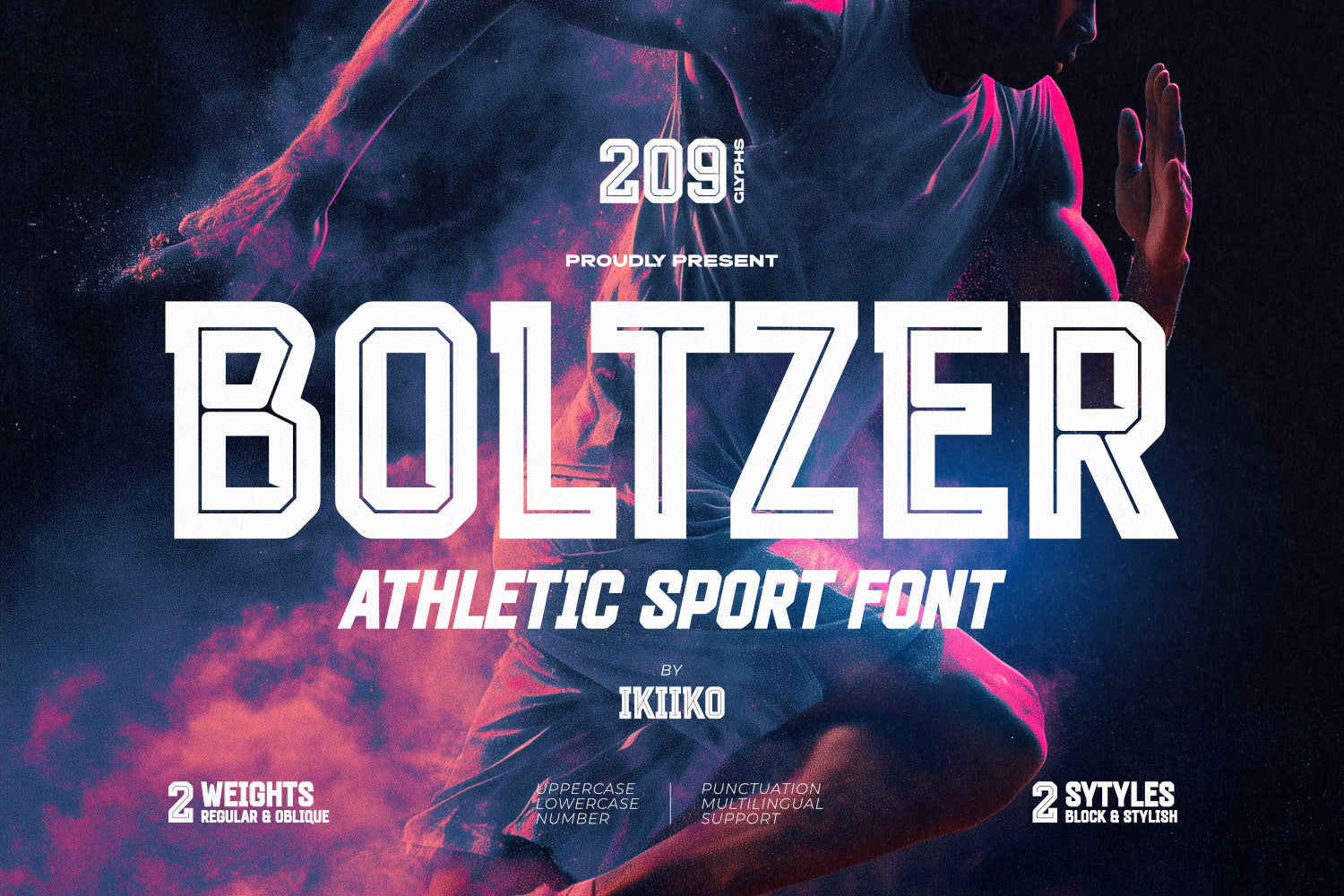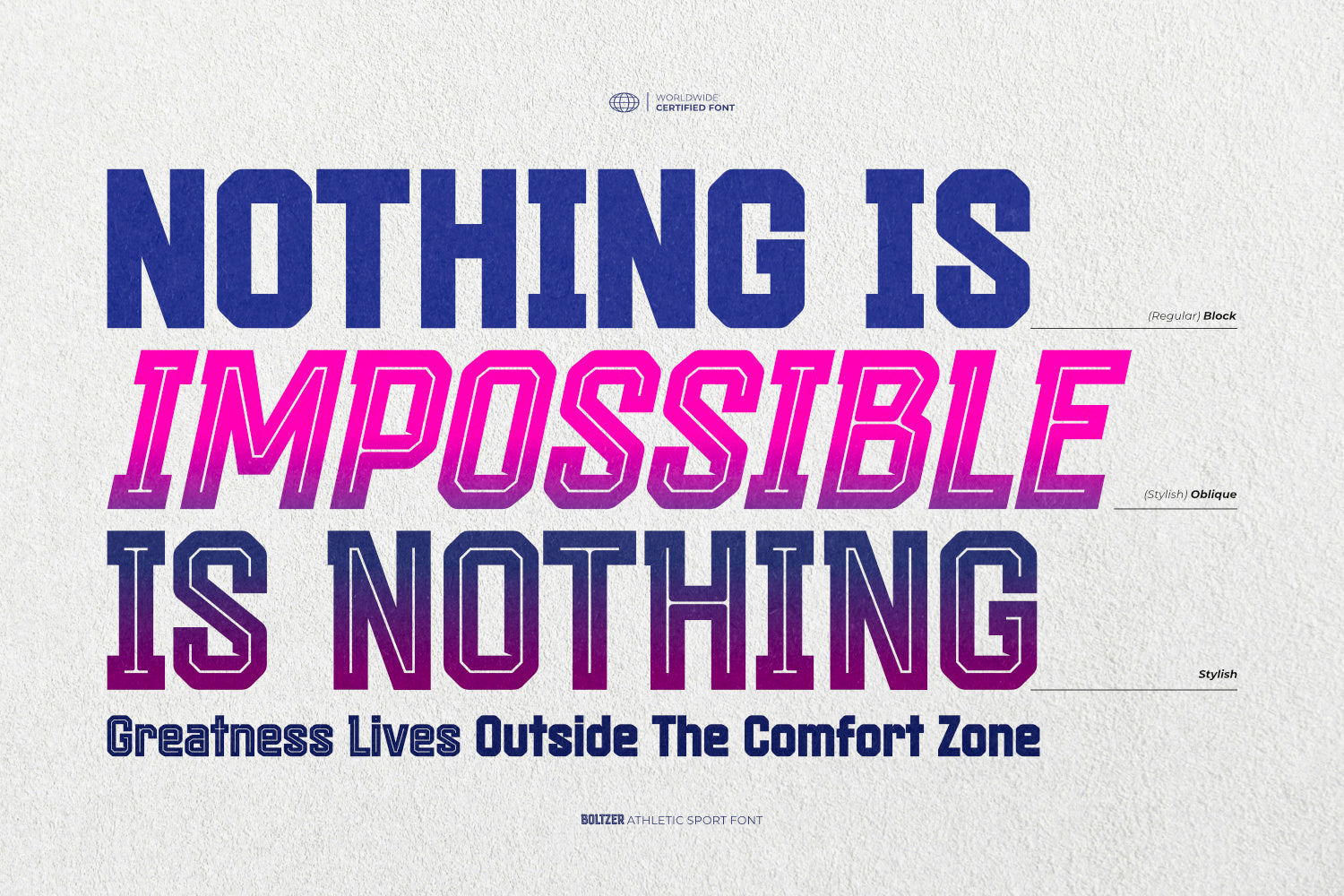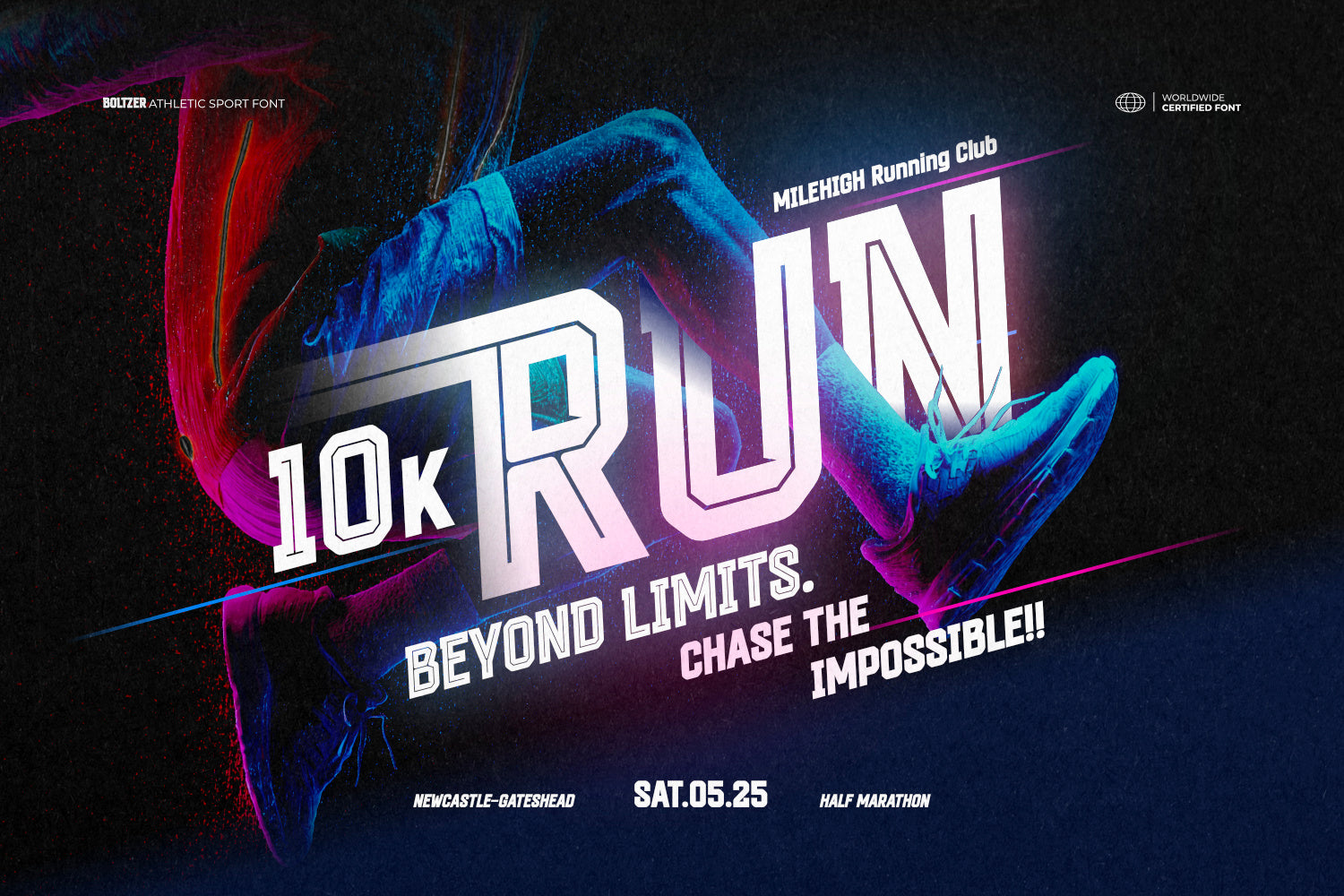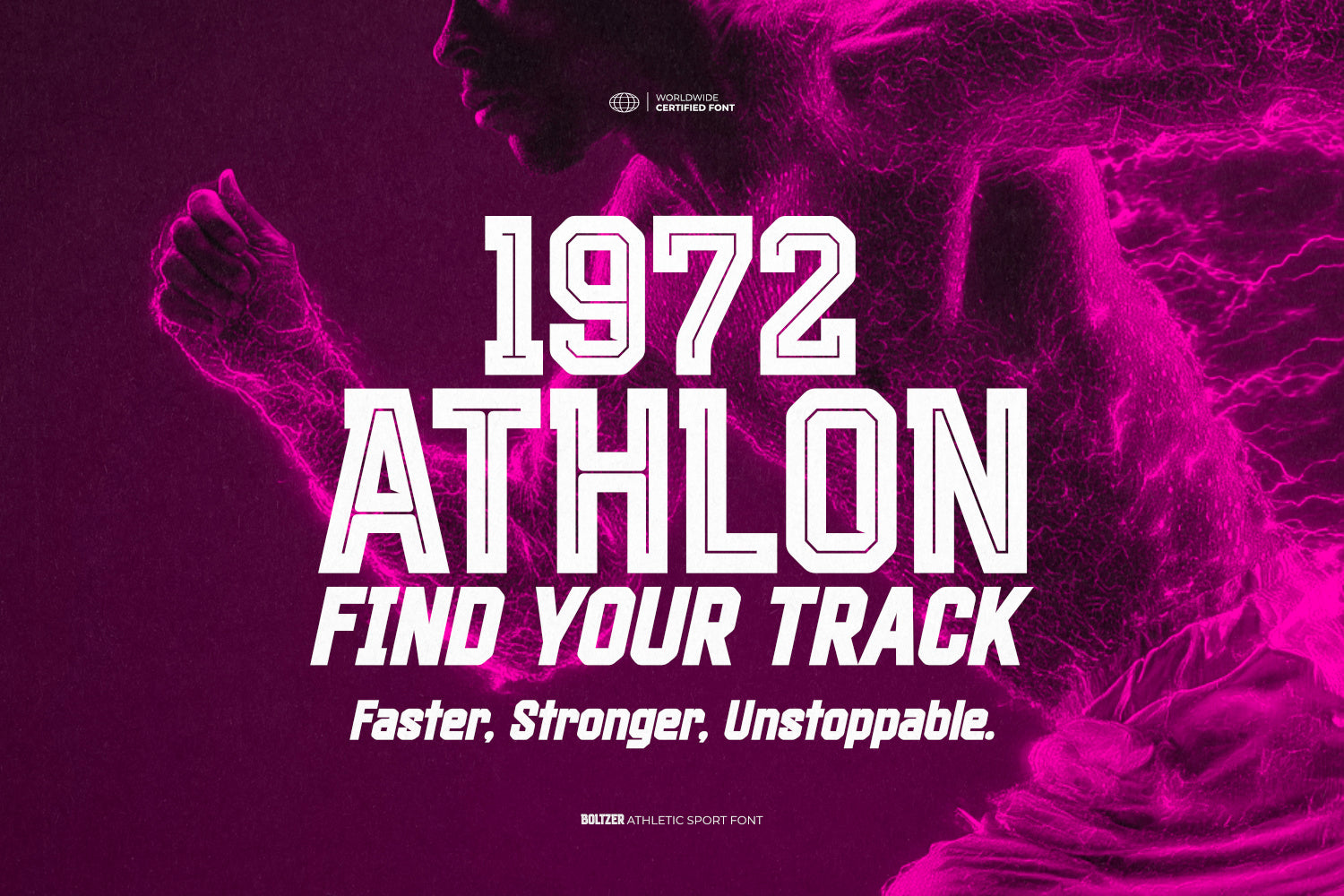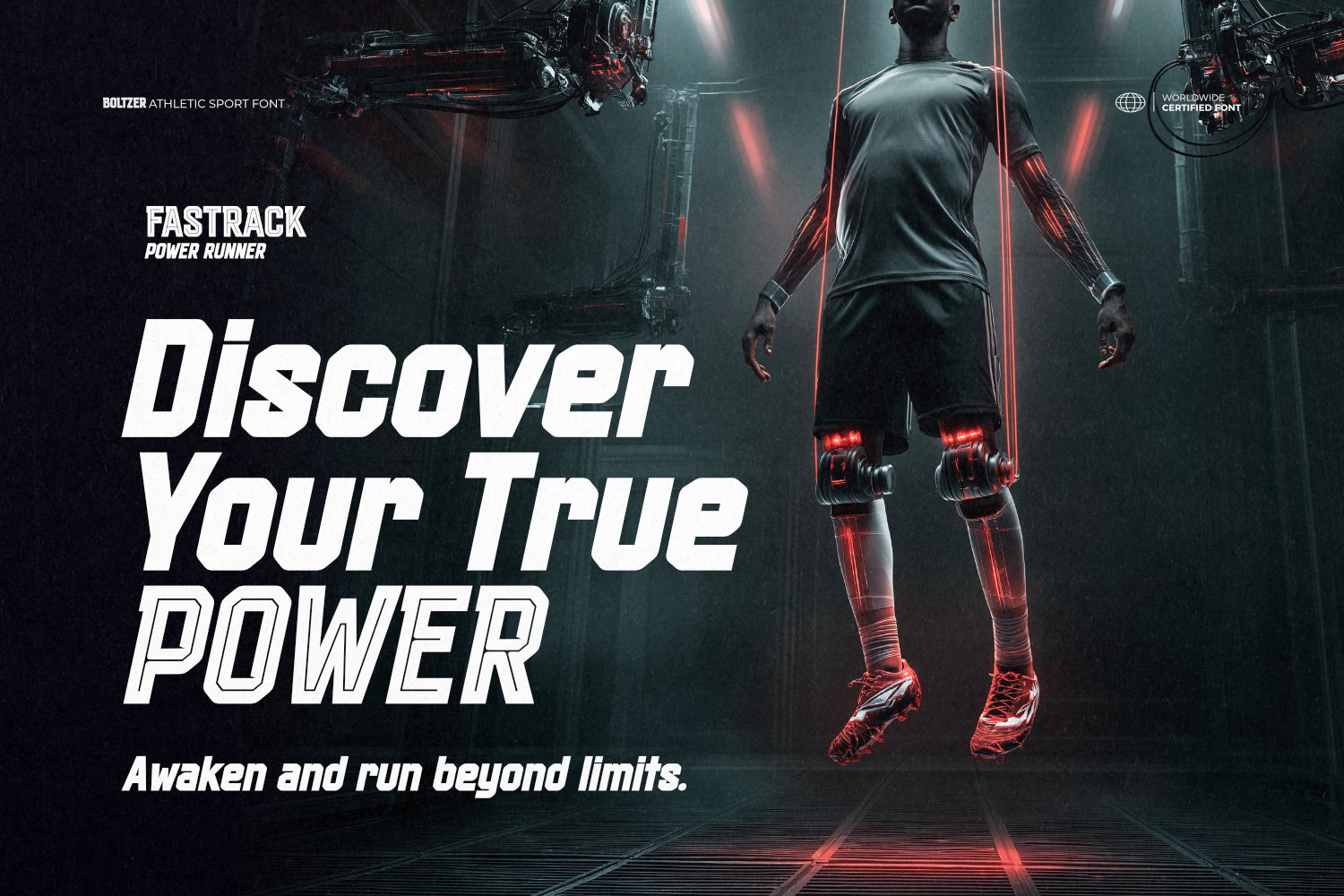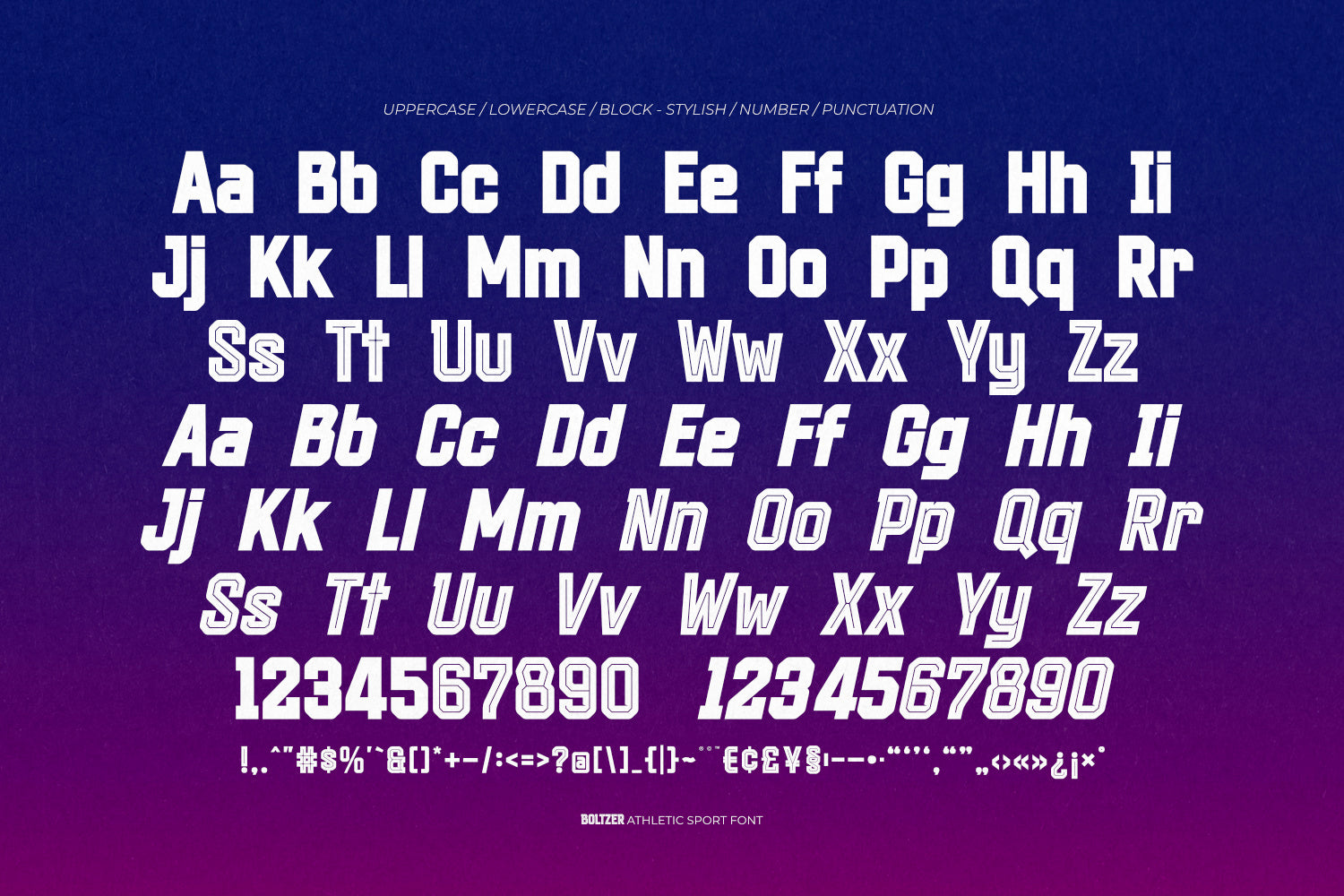
Proudly present Boltzer - Athletic Sport Font, created by ikiiko.
Boltzer is a bold and masculine athletic sport font designed to bring strong, energic vibes to your designs. Inspired by old-school college lettering and modern urban style, Boltzer combines strength and style for a versatile, eye-catching typeface. Perfect for sport logos, team branding, varsity apparel, and competitive event graphics, this font exudes athletic energy and confidence. Boltzer comes in two distinct styles — Block and Stylish (featuring dynamic lines inside the letters) — and each style includes Regular and Oblique weights, giving you flexibility for both classic and edgy looks. Whether you're creating a team logo, a college poster, or an urban sport-themed design, Boltzer delivers bold, strong, and masculine typography with an unmistakable sport vibe.
This font is perfect for a sport club logo, poster event & flyers, apparel branding, headline, cover, magazine layout, website layout, fashion, quotes, or simply as a stylish text overlay to any background image.